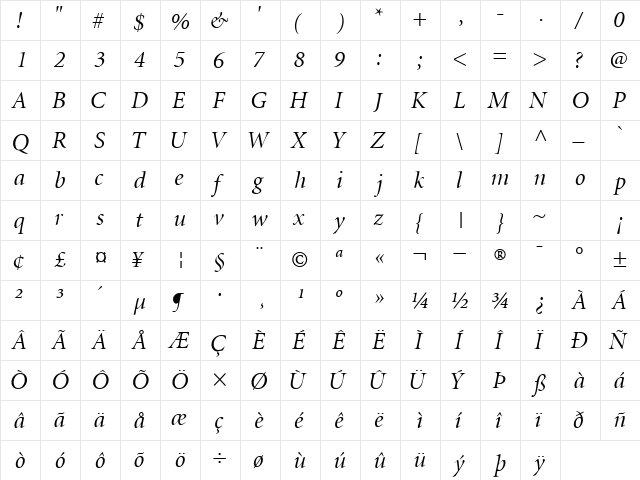
AtlantixDisplaySSK Italic
Design Context for AtlantixDisplaySSK Typeface
AtlantixDisplaySSK is built around its visual character rather than neutral utility — its distinctive forms are designed to make an impression at display sizes. Its italic angle brings a sense of urgency and motion to the letterforms.
Font Pairing: Pair with a clean neutral sans-serif for body copy to let AtlantixDisplaySSK's character lead without overwhelming the composition.
Pro Tip: Use AtlantixDisplaySSK exclusively at display sizes — it was designed to be seen, not read at length. Let a neutral companion handle body copy.